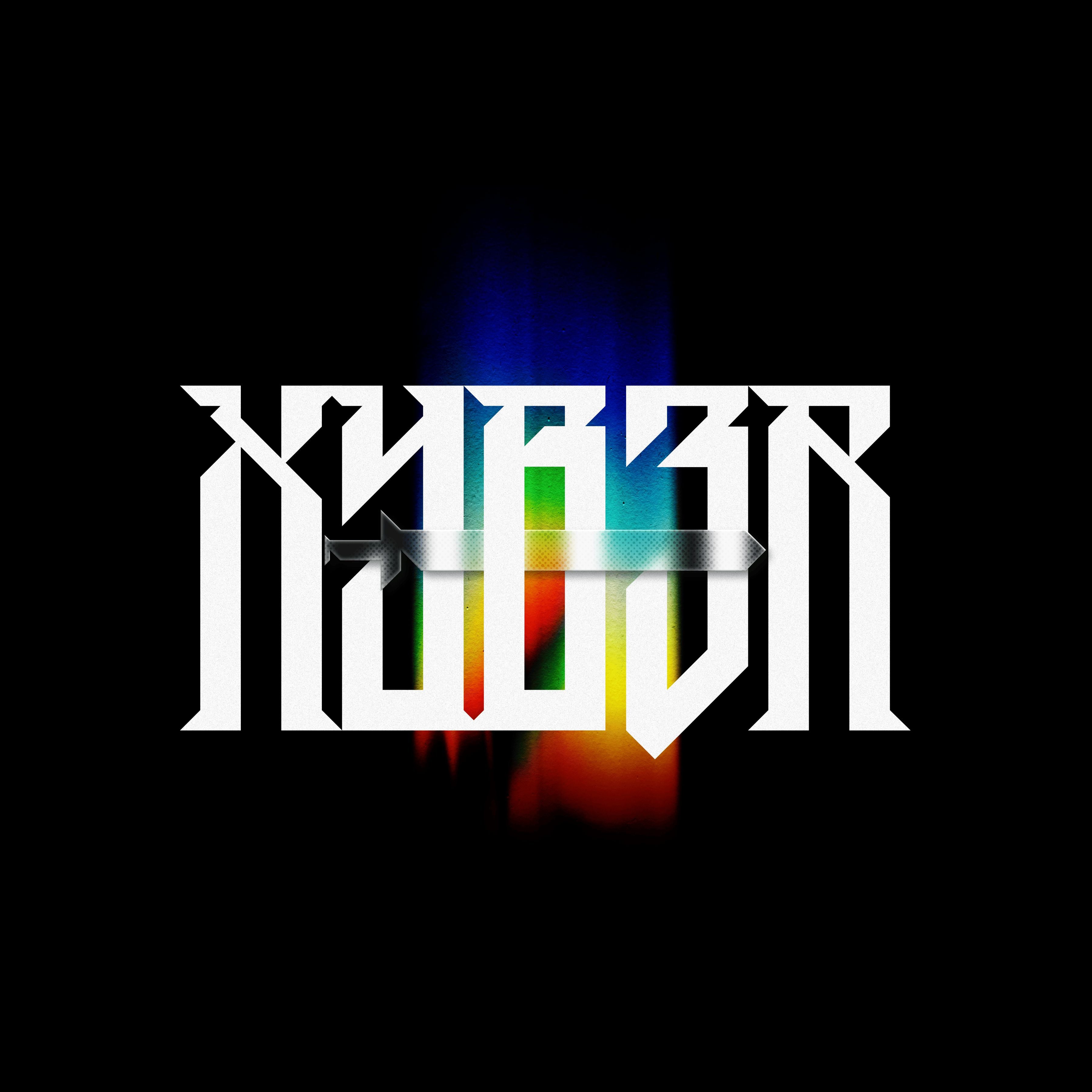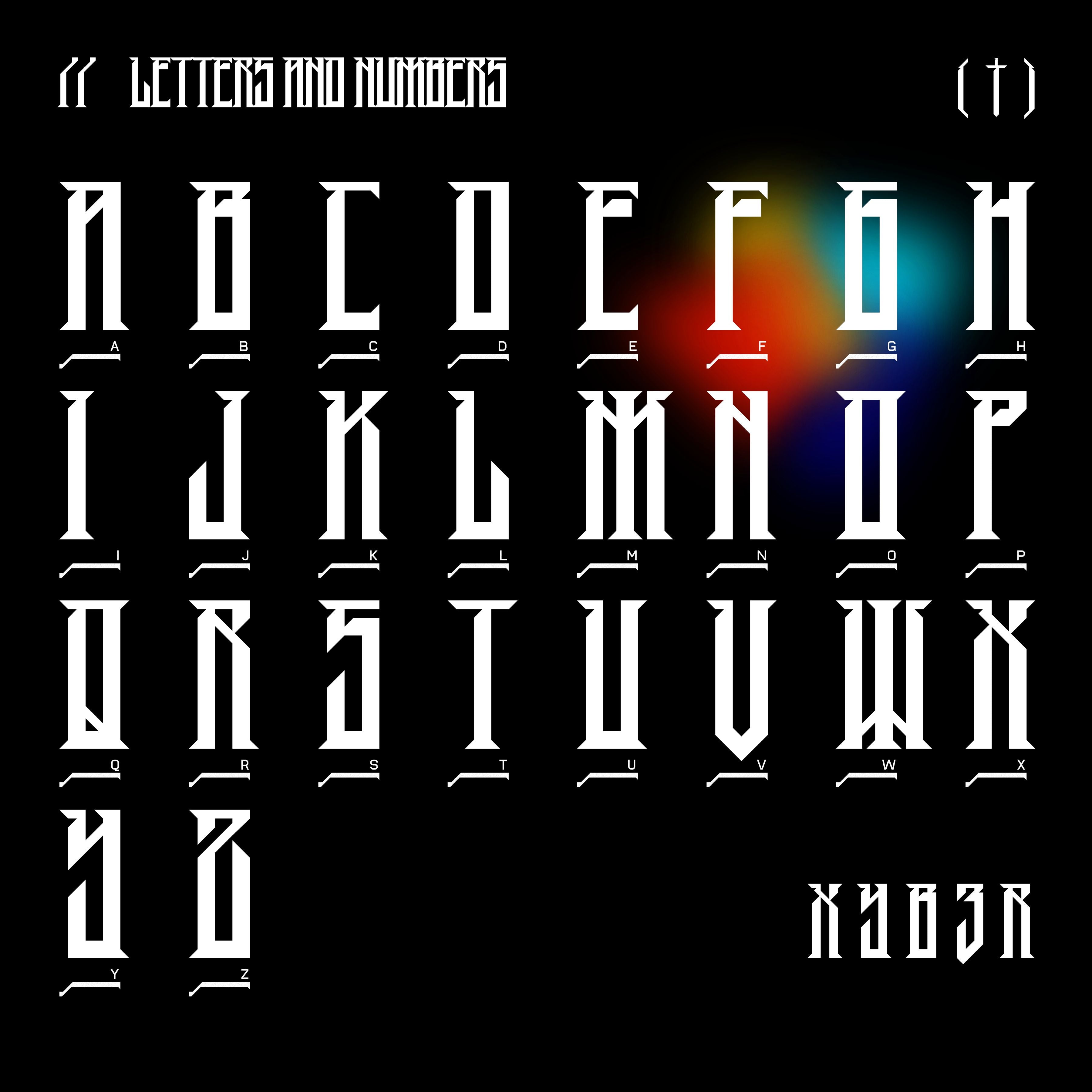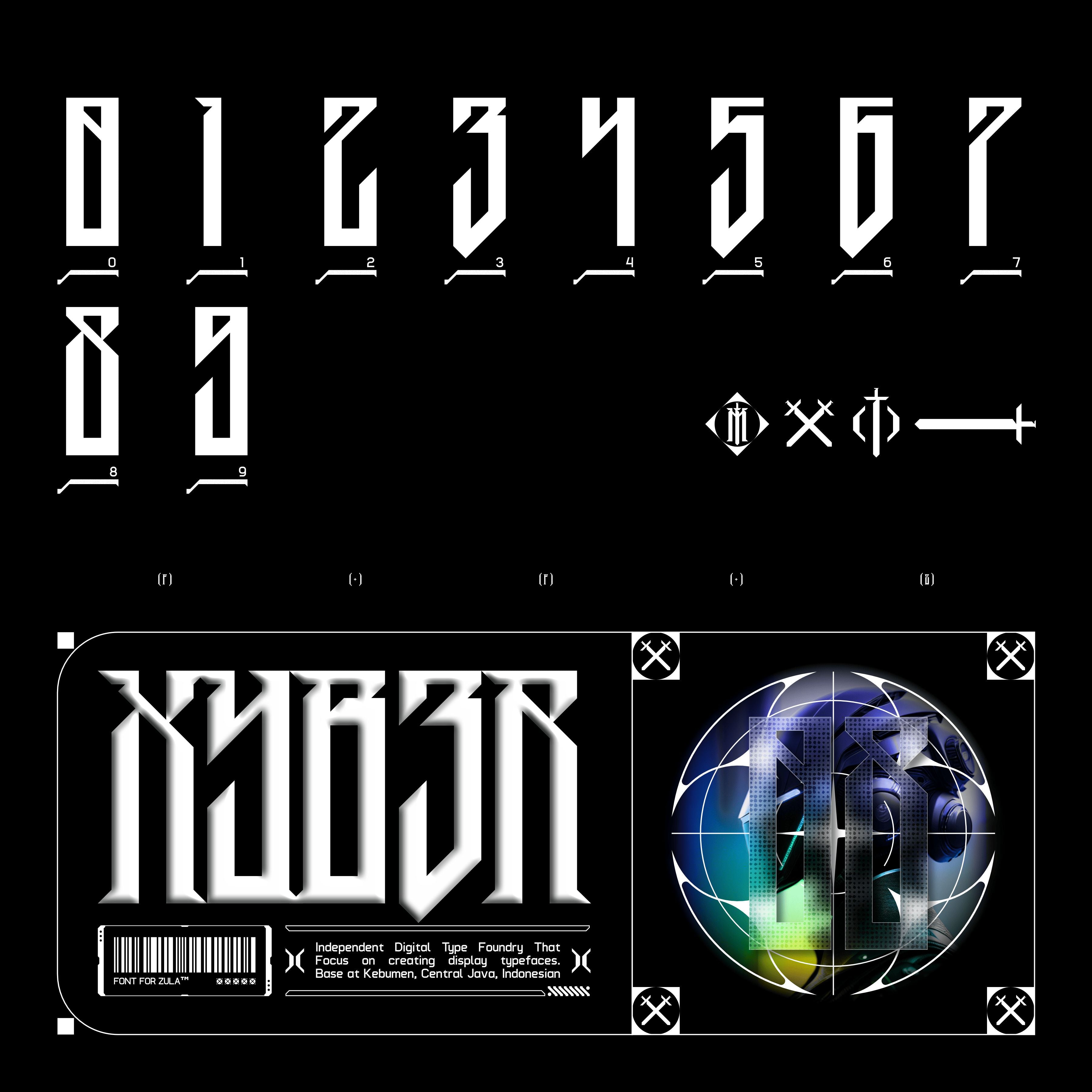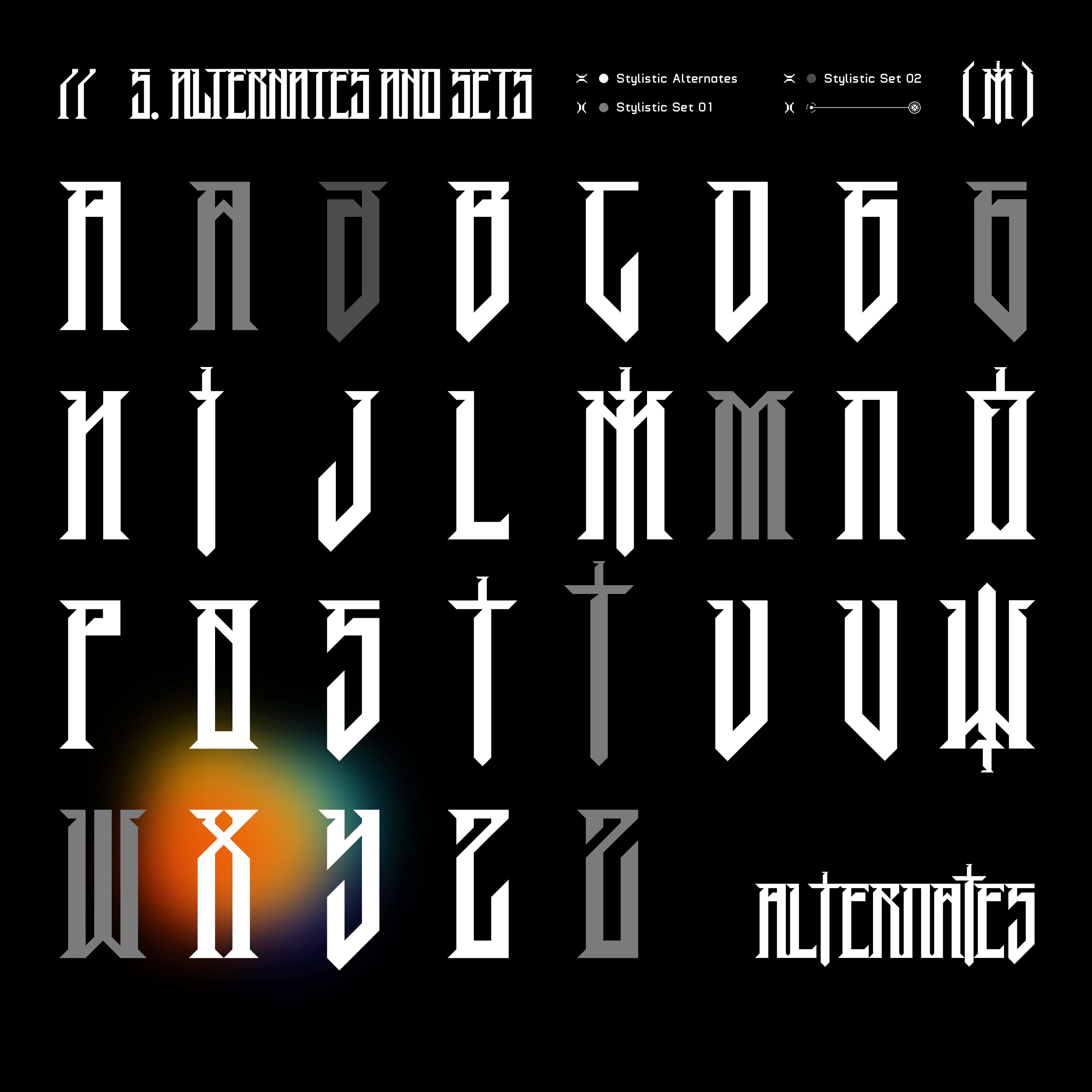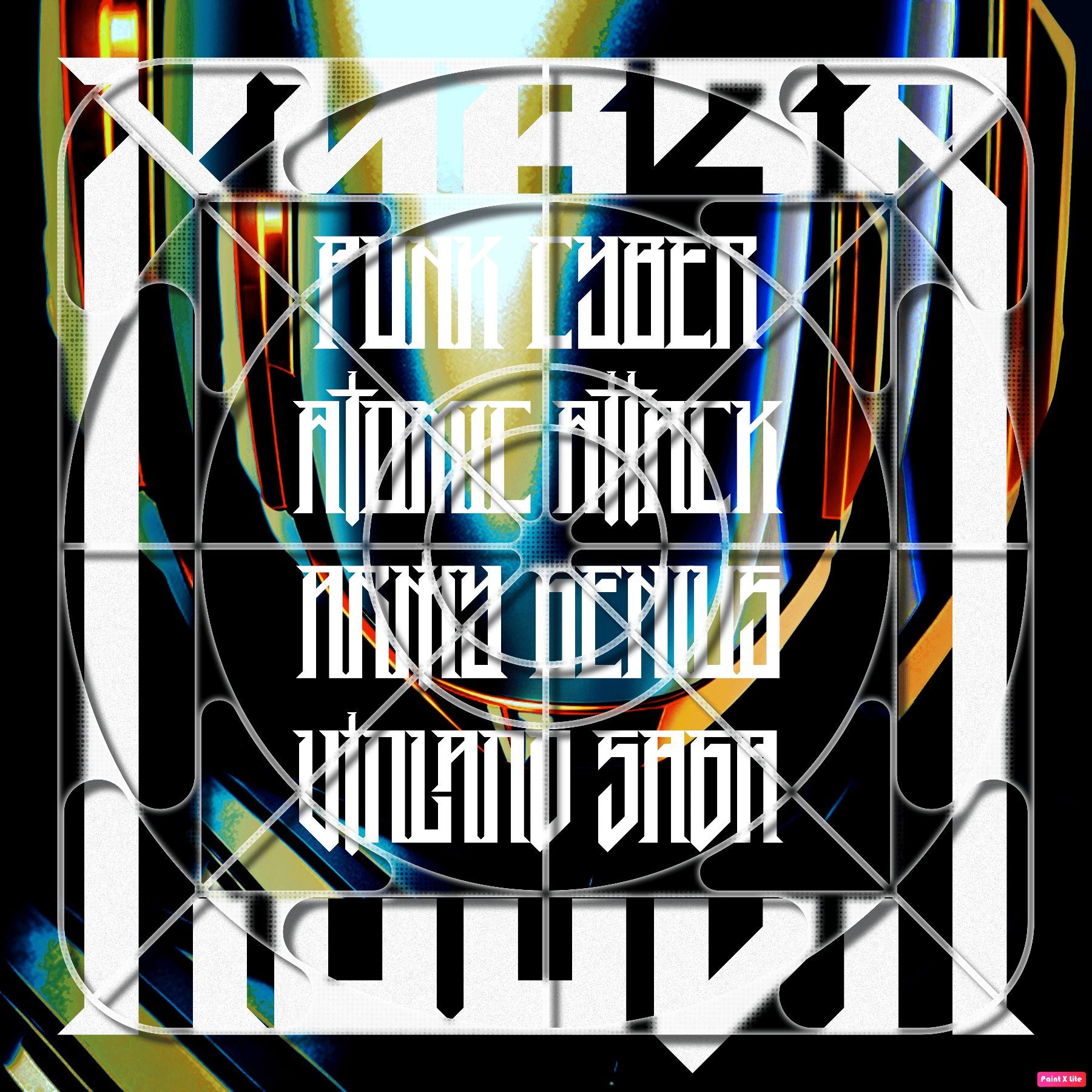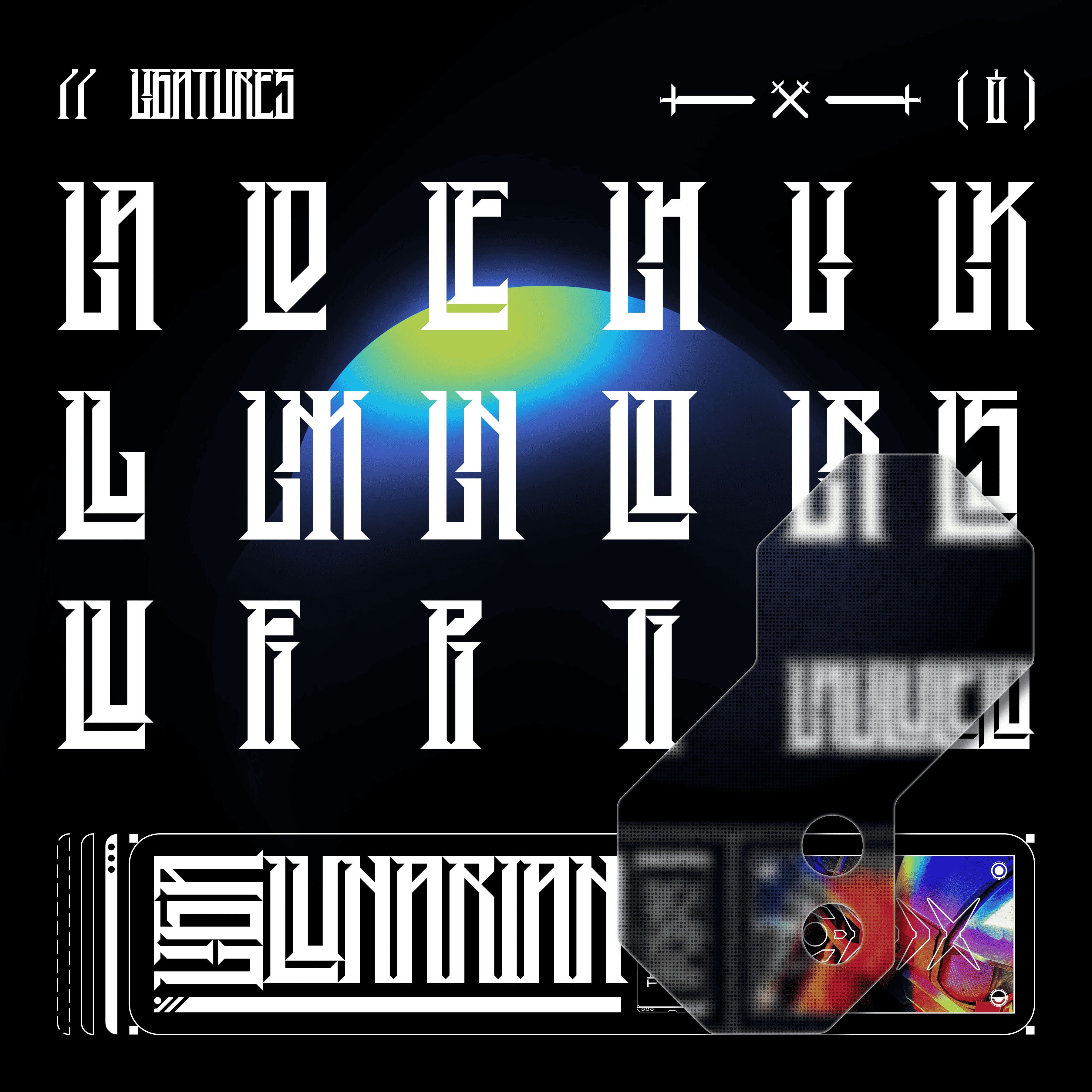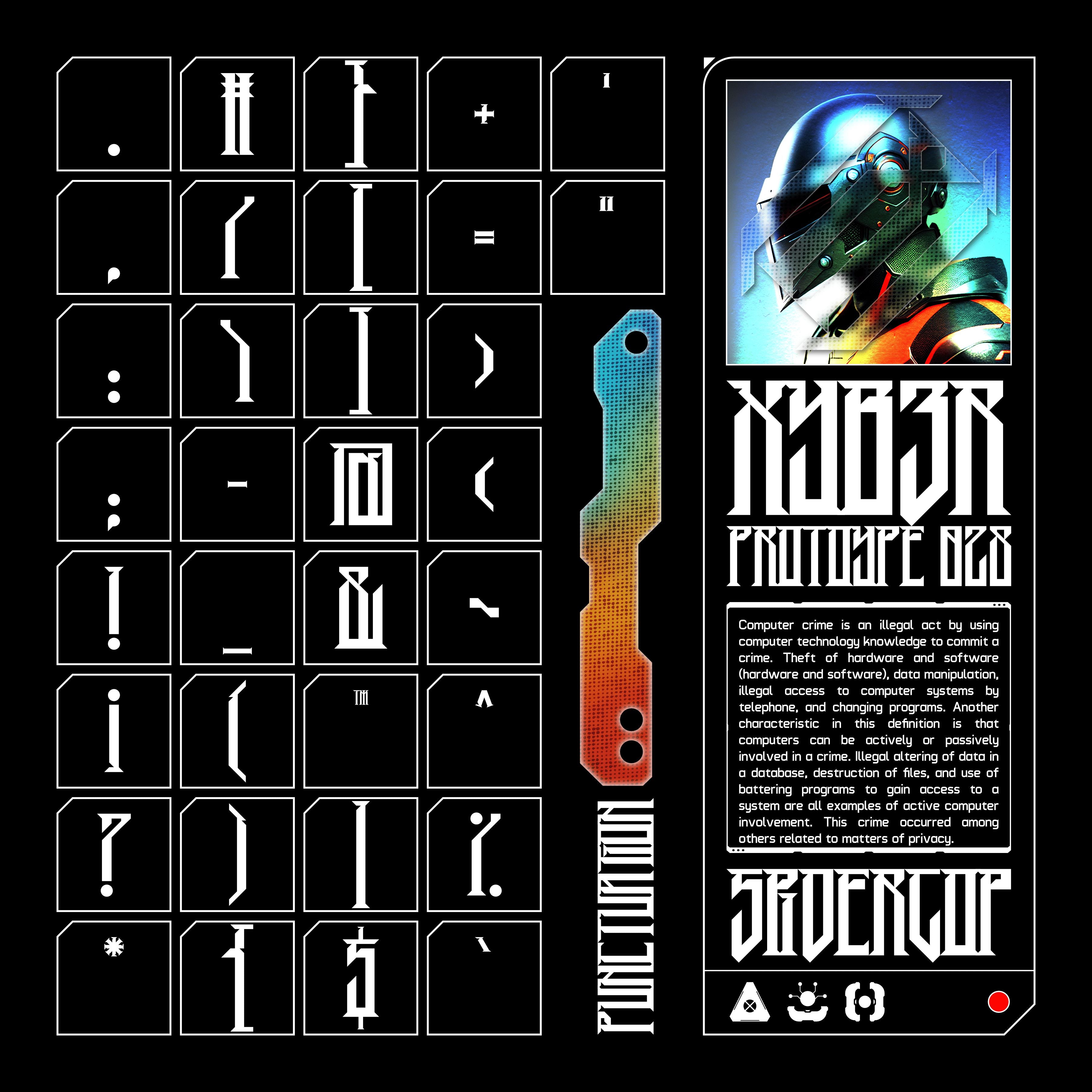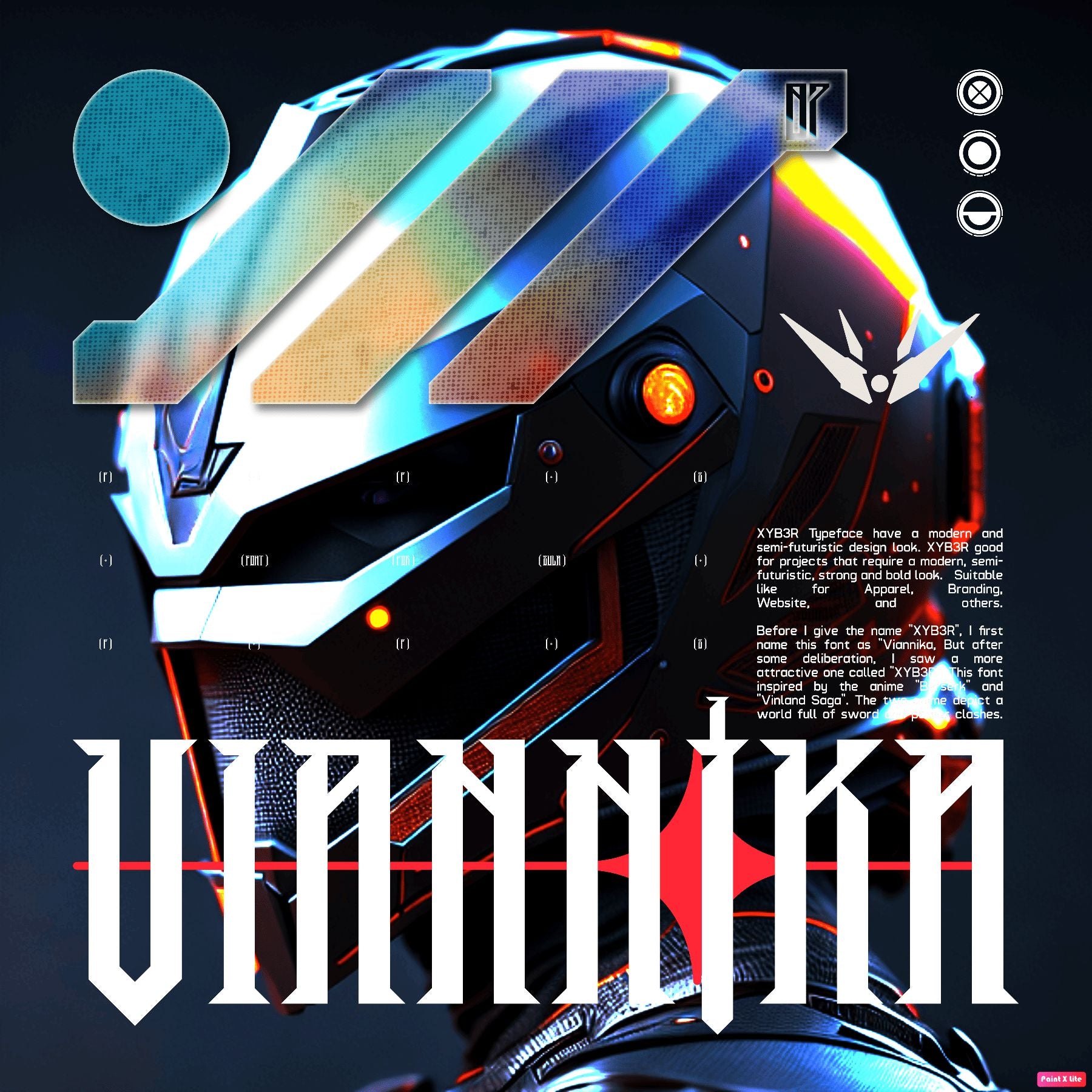
The XYB3R Typeface is a modern, semi-futuristic font that features a strong and bold design. It includes OTF/TTF and WOFF formats, uppercase, numeral, punctuation and symbol characters, along with 29 stylistic alternates and 16 ligatures.
Ideal for modern and semi-futuristic graphic design projects. Perfect for apparel, branding, and website design, ensuring a strong and bold visual impact that captivates audiences.